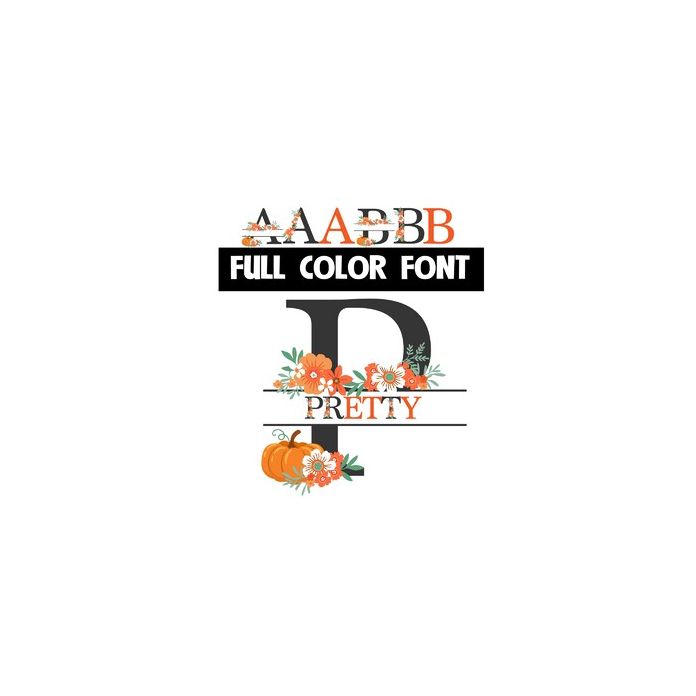
Pretty With Pumpkins Color Font
This full-color font an uppercase with a floral monogram banner that you can type into. The lowercase is a pretty floral and you can access another version of the letters by using the alt characters in Silhouette's glyph map. This font works best for titles, displays, posters and more. Please note color fonts will show as black in non compatible programs. This font type is compatible with Silhouette Studio